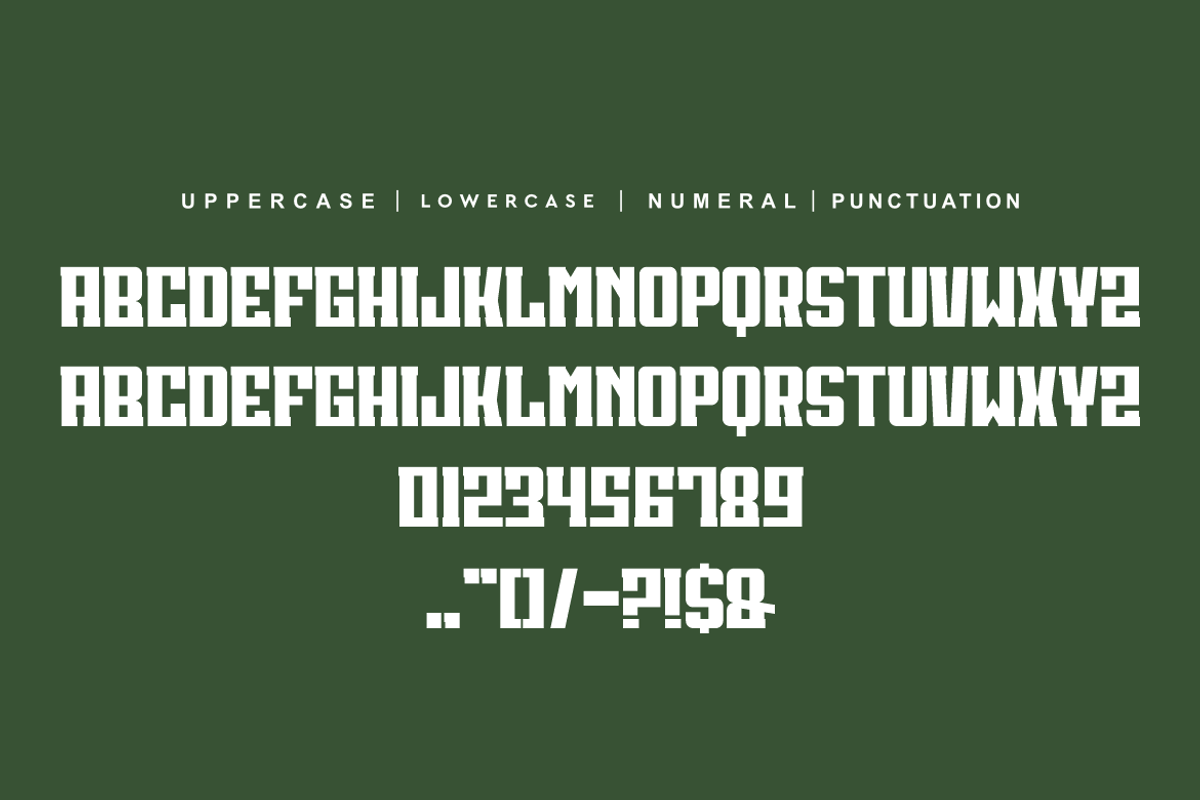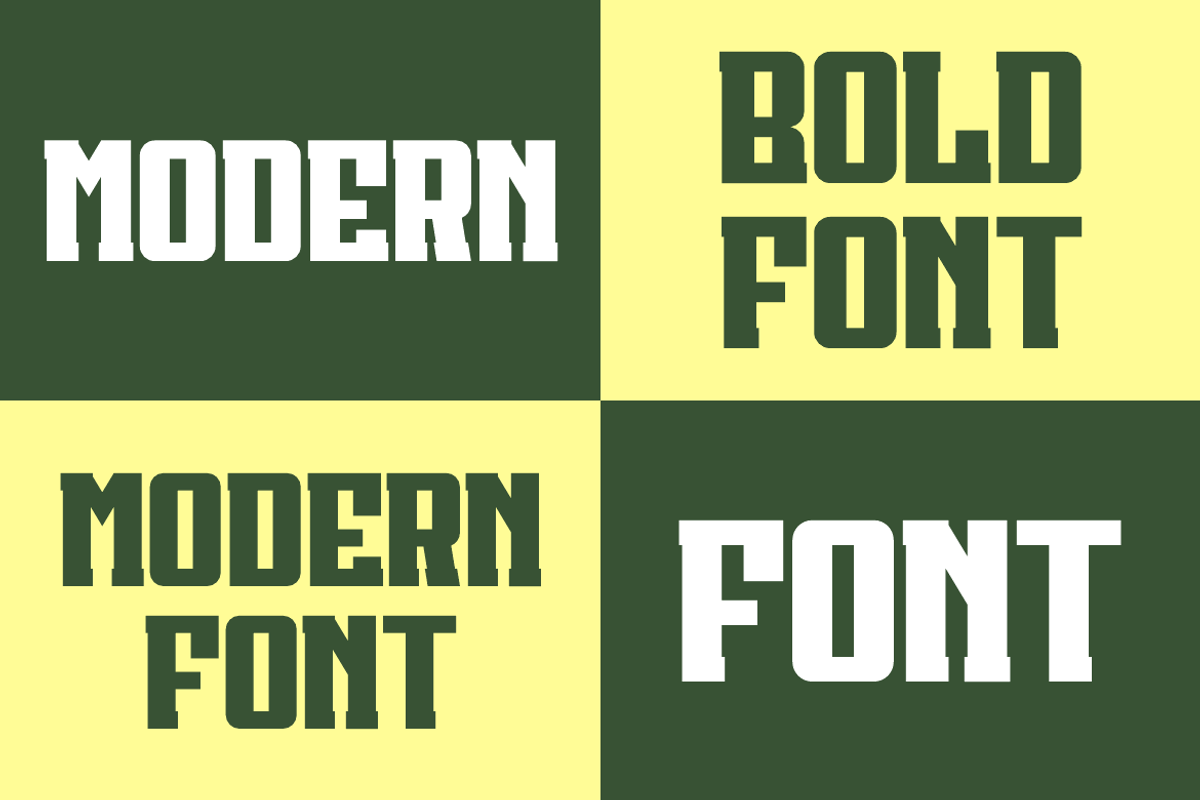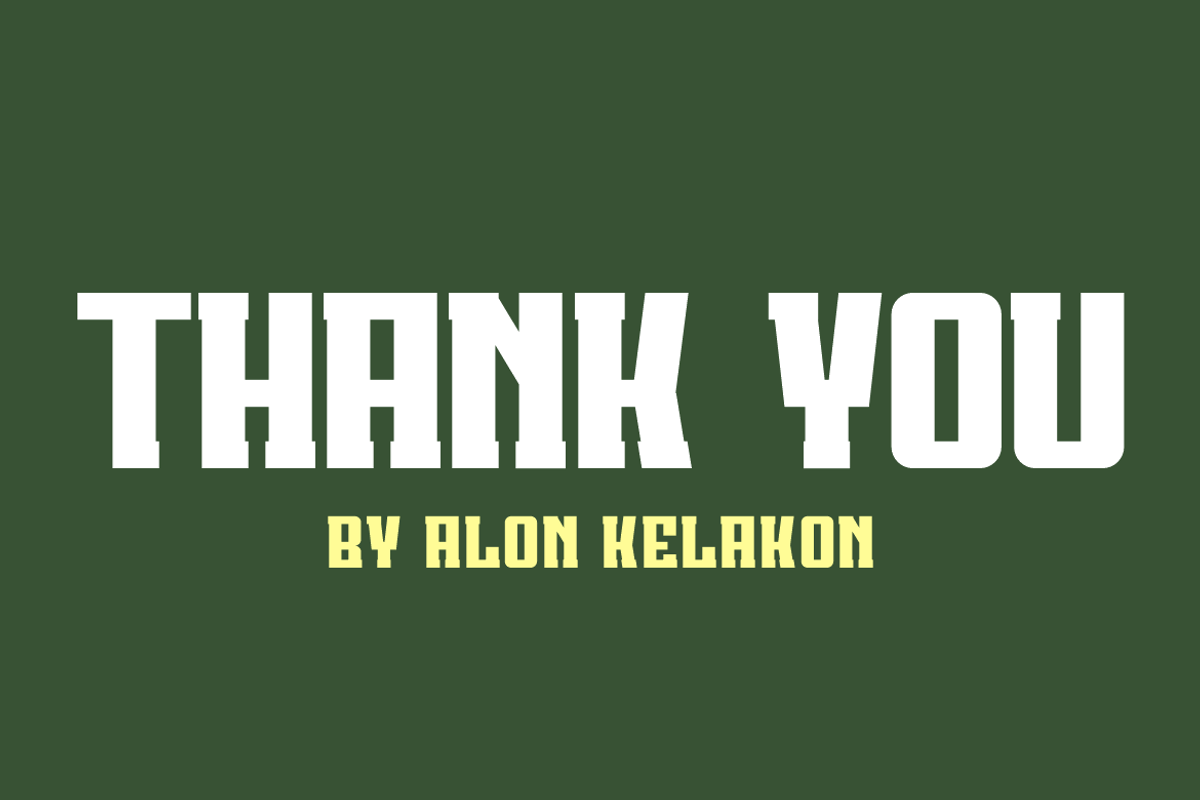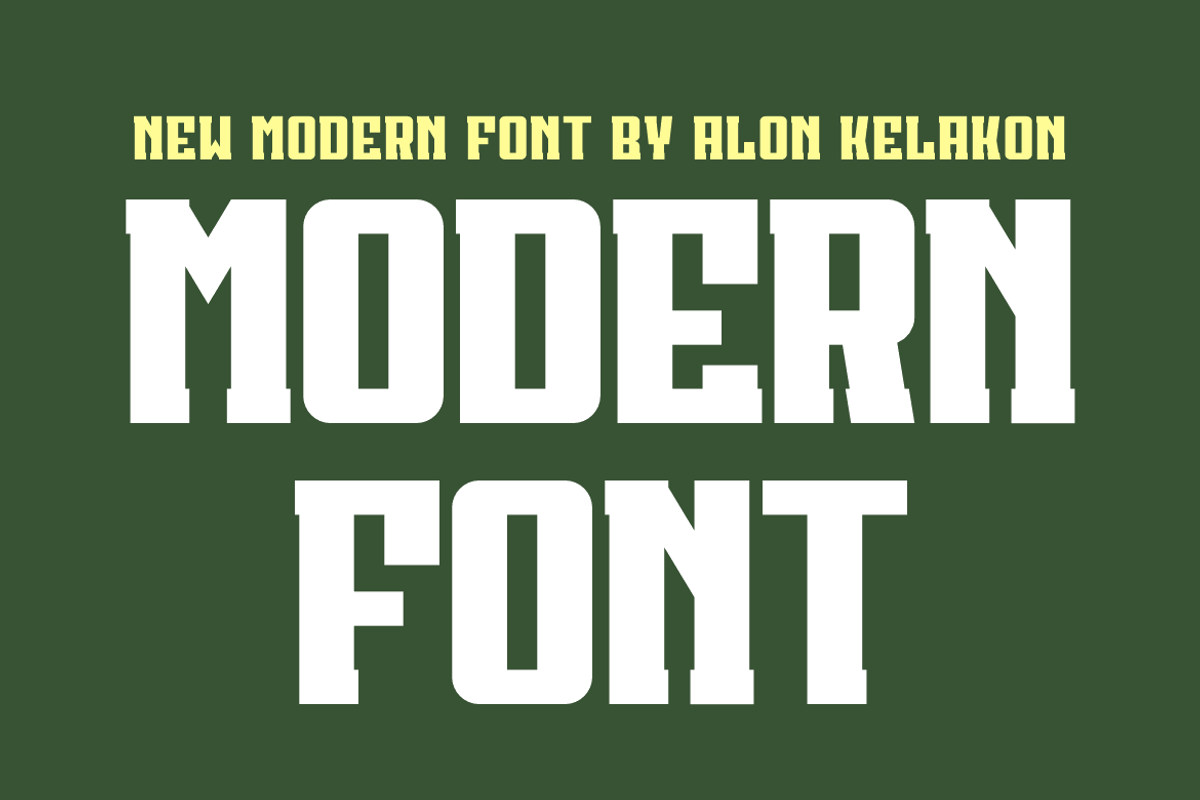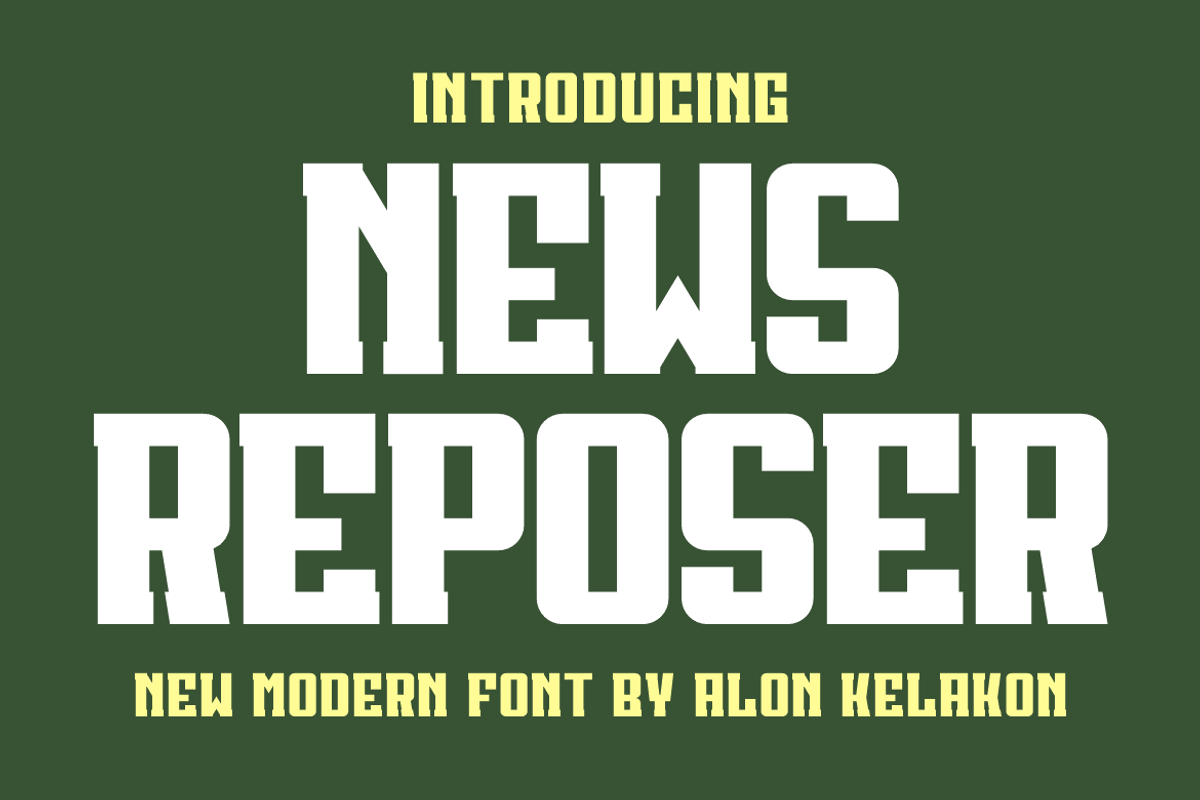
News Reposer
News Reposer Font is unique . Ready to use for your design like labeling, clothing, movie sceen, poster, movie title, gigs, album covers, logos, and much more.